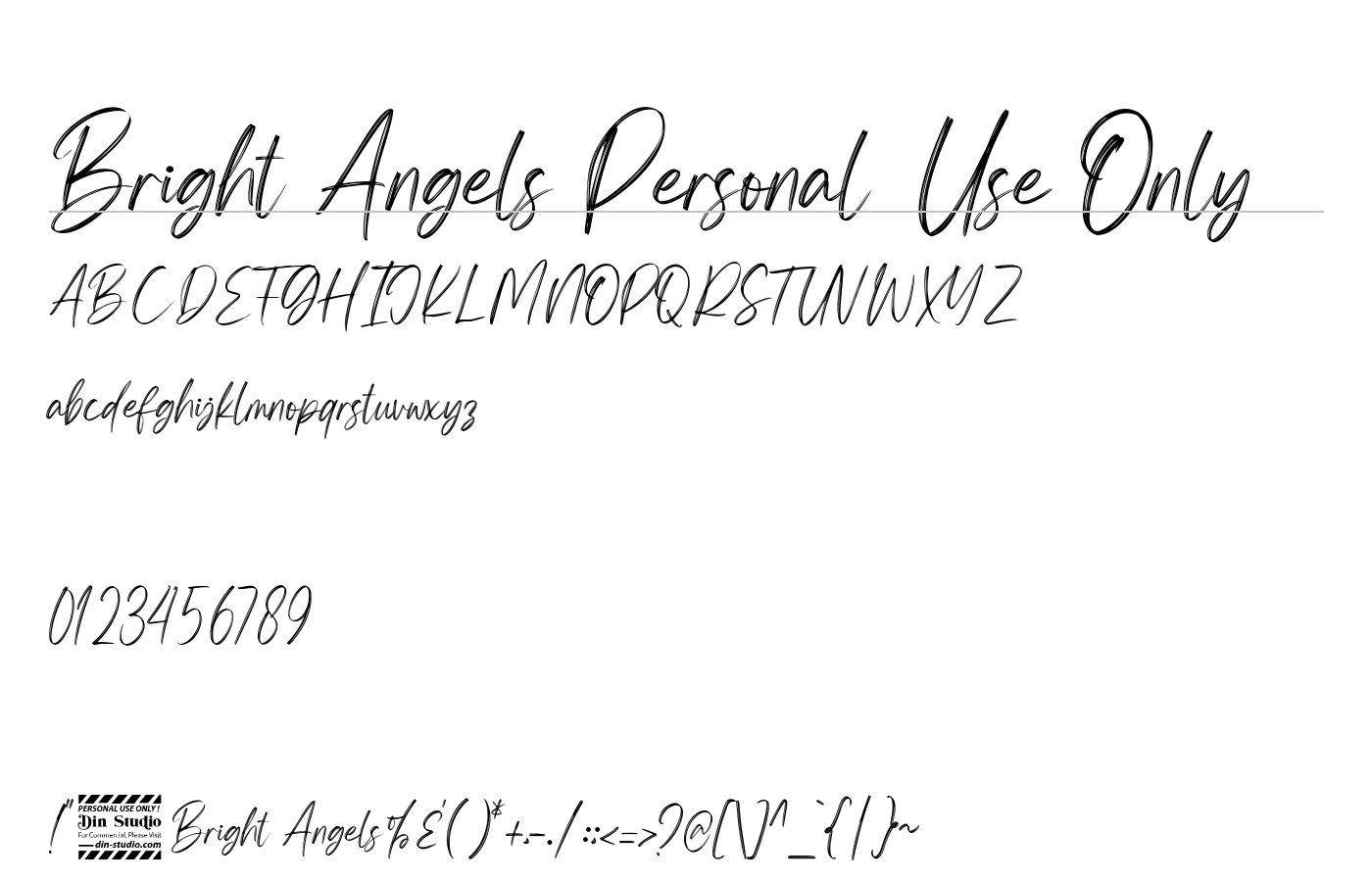
Bright Angels Personal Use Only is a slender, elegant script font that mimics natural, flowing handwriting with a slightly casual, artistic flair. Its fine, delicate strokes and smooth, connected letterforms give it a sophisticated yet approachable feel, making it perfect for personal branding, invitations, and creative projects that require a graceful, handwritten touch. This font works best for headlines, logos, and decorative text where a personal, stylish expression is desired.
Bright Angels Personal Use Only Font
About Bright Angels Personal Use Only Font